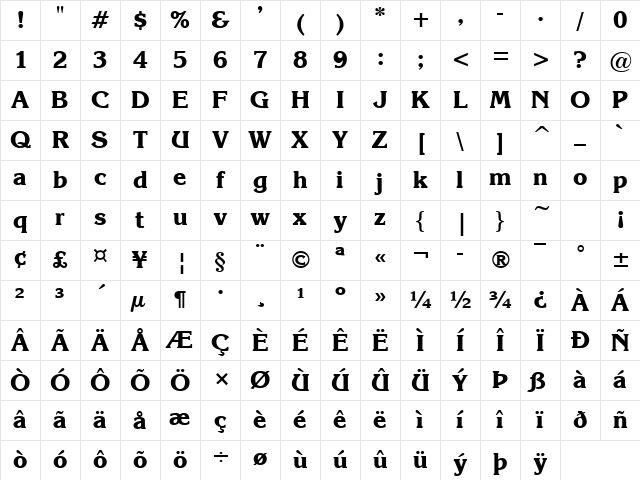
Katrina Bold
Design Context for Katrina
Katrina is a composed and adaptable typeface that performs quietly and consistently across a wide range of design contexts. Its bold stroke weight gives it real presence on the page.
Pro Tip: Use Katrina in both headline and body roles to test its range before committing to a single application.